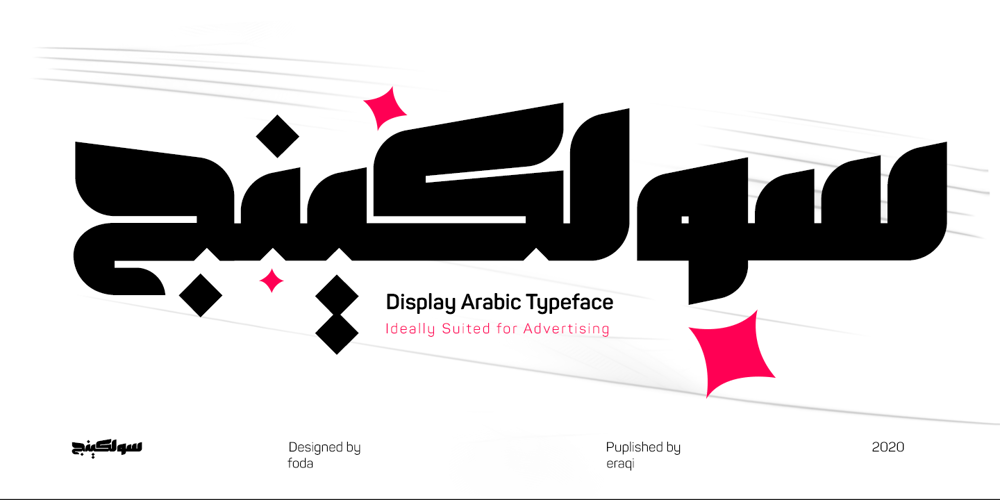
SolKing Font Family was designed by Ahmed Eraqi, Nohamad Foda and published by Fo Da. SolKing contains 3 styles and family package options. Solking is an Arabic typeface of a three weights : Sharp, Curved and Rounded .the main focus is on blending traditional and modern rules in the formulation and design of the Kufi type in new style .